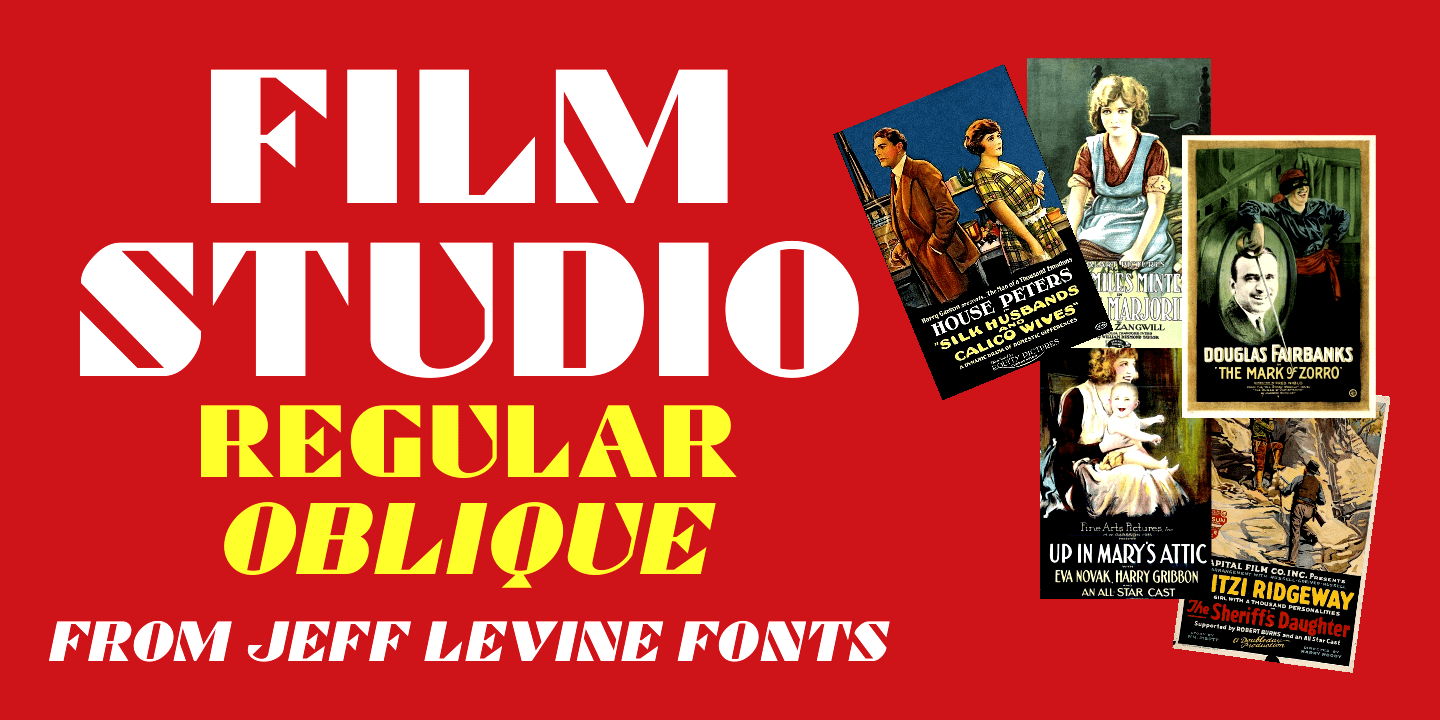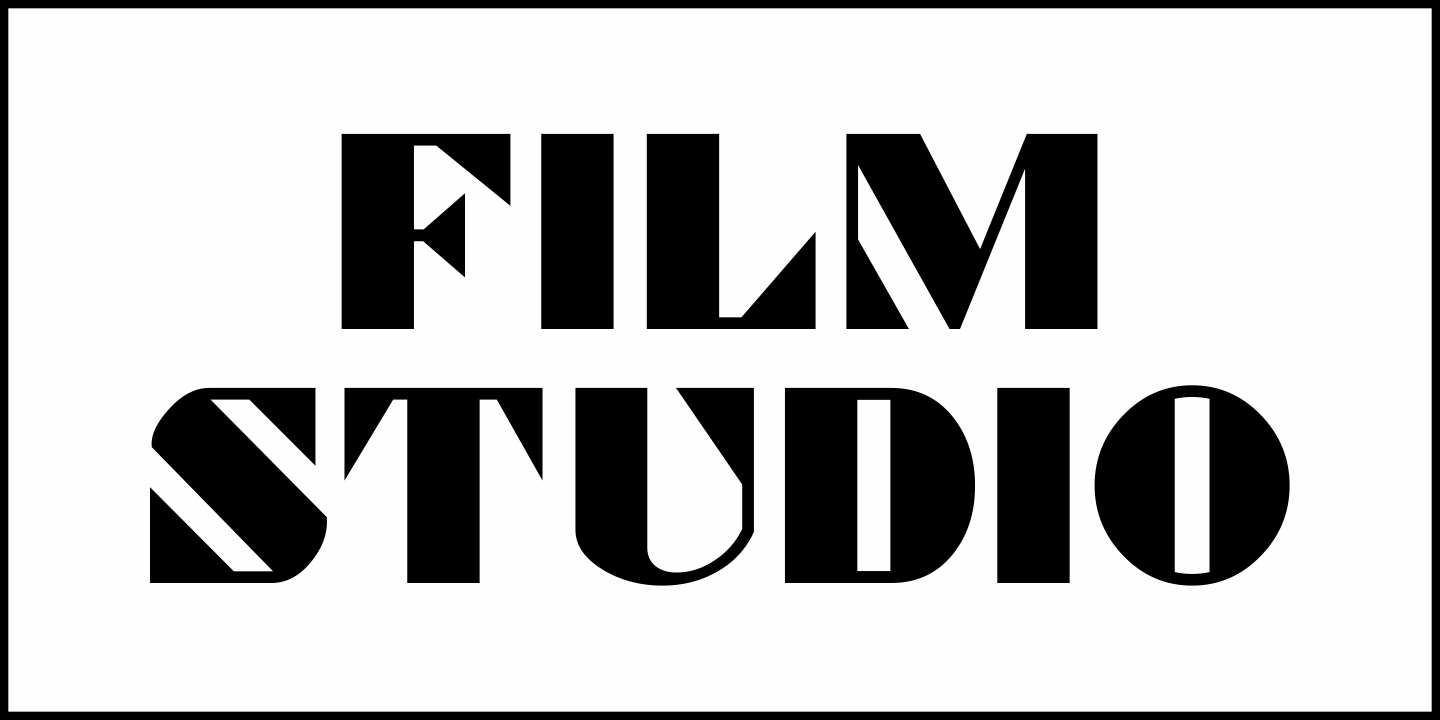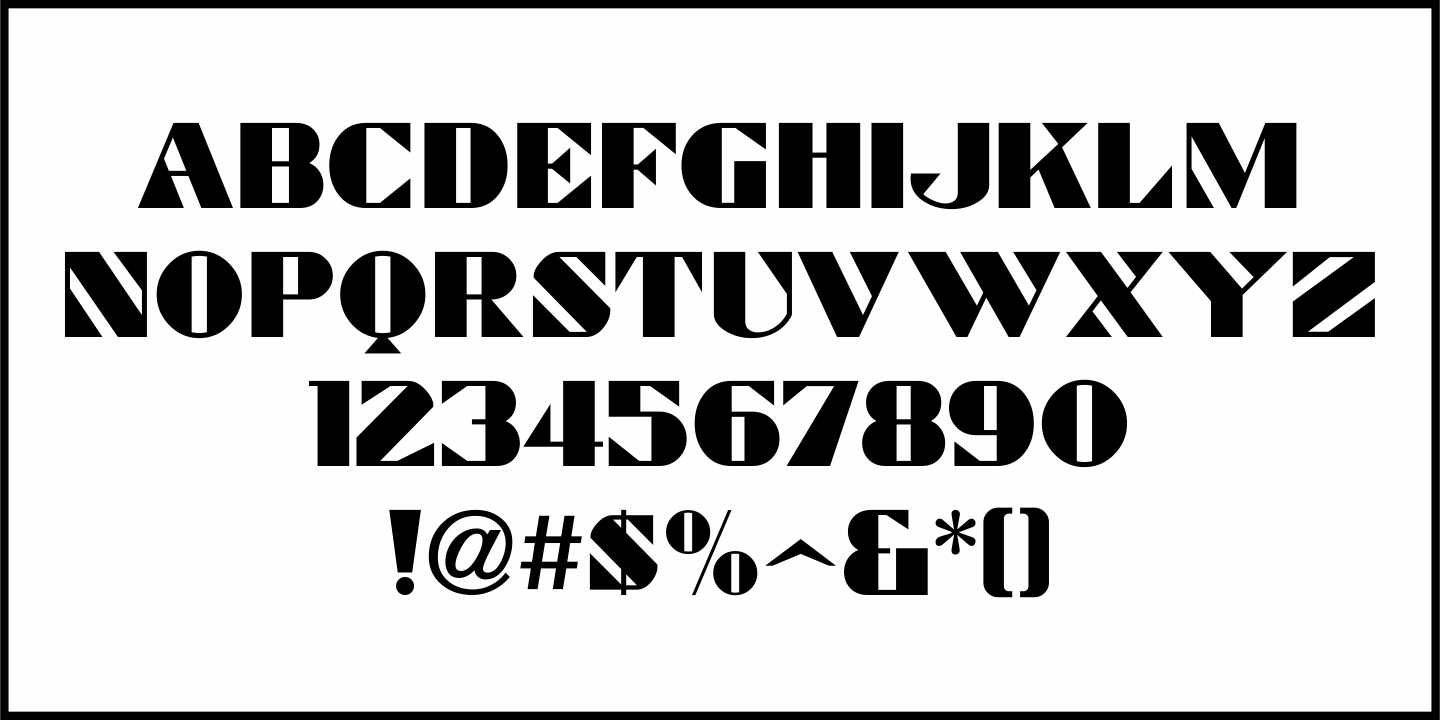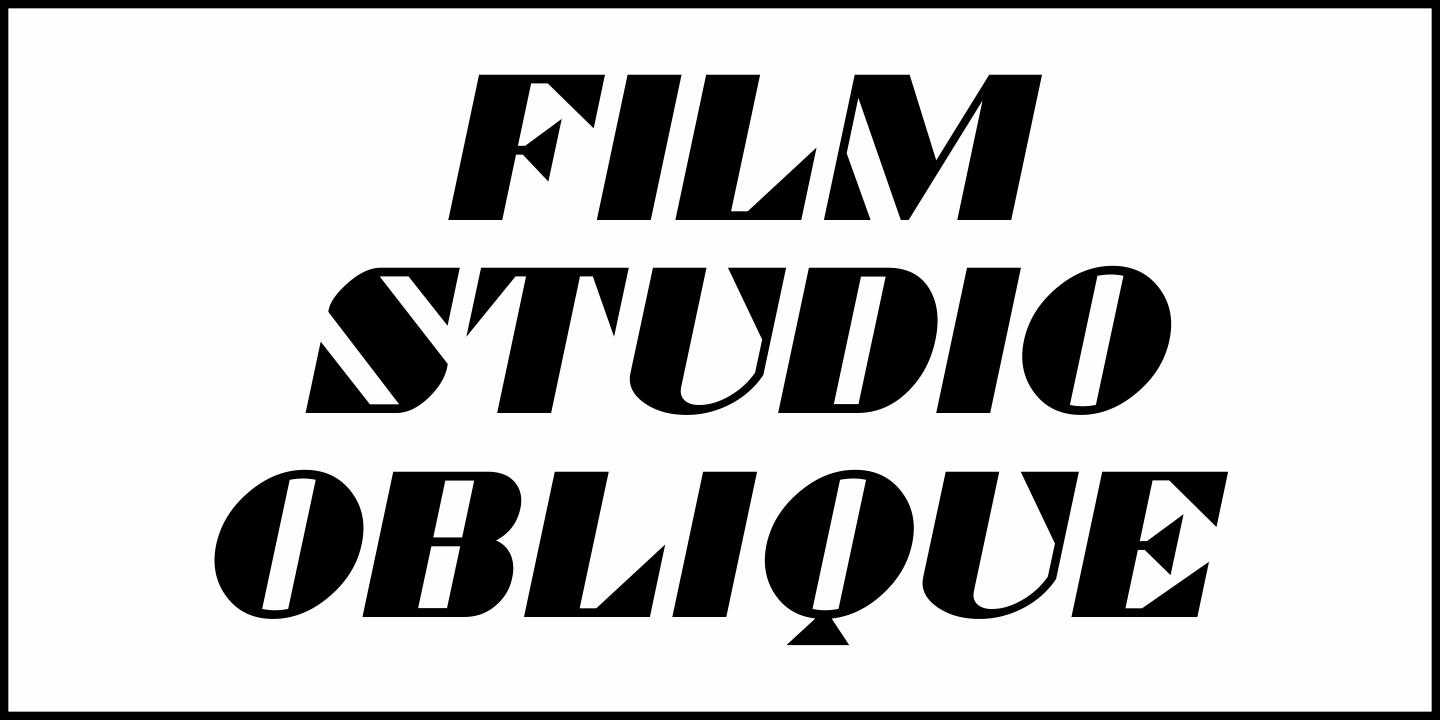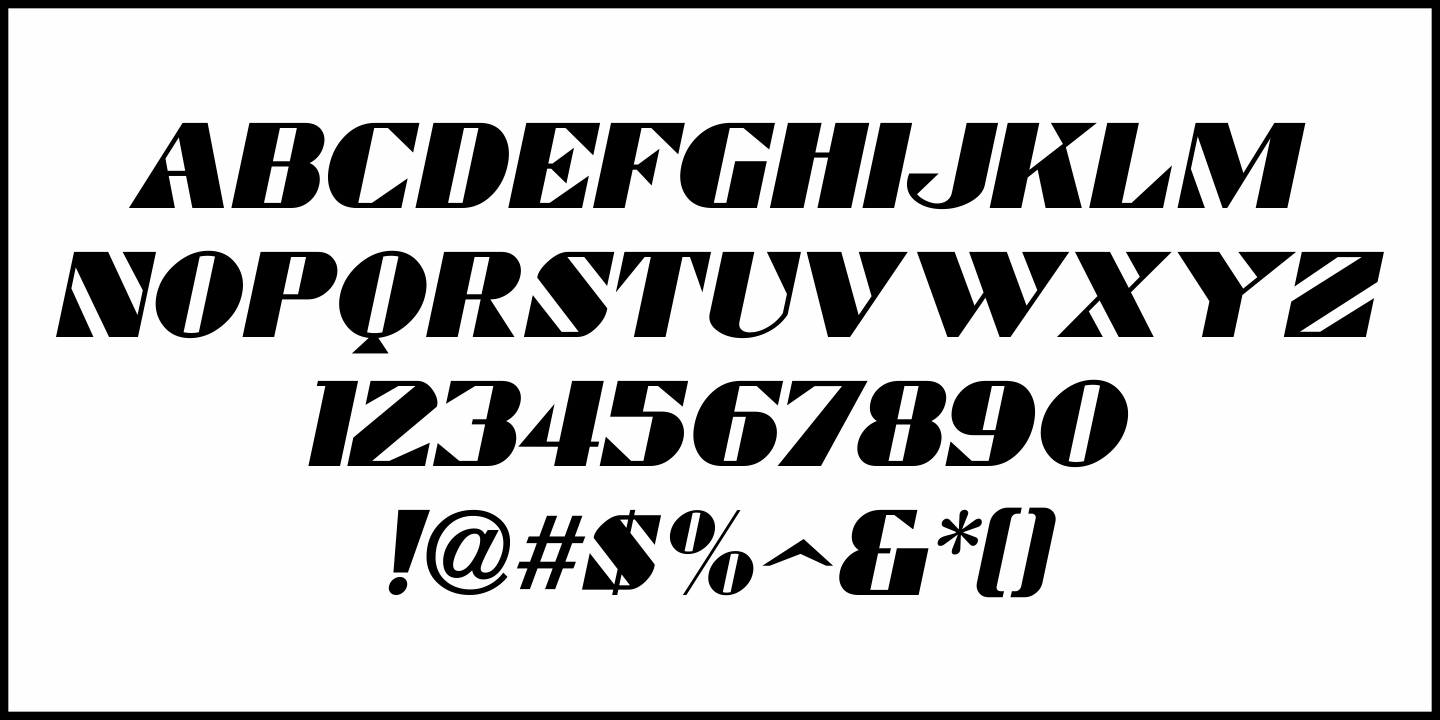
Film Studio
In the February 11, 1933 issue of Hollywood Filmograph was an ad for Projectionist's Union Local 150, I.A.T.S.E.
The union was announcing how many theaters listed within the ad were now fair to their members and employed them, further stating those theaters were now deserving of their members' patronage.
The bulk of the lettering was set in one of the era's many Art Deco typefaces that took their cue from Futura Black but had their own distinct design personality.
This particular font is now available digitally as Film Studio JNL in both regular and oblique versions.
Film Studio by Jeff Levine Fonts